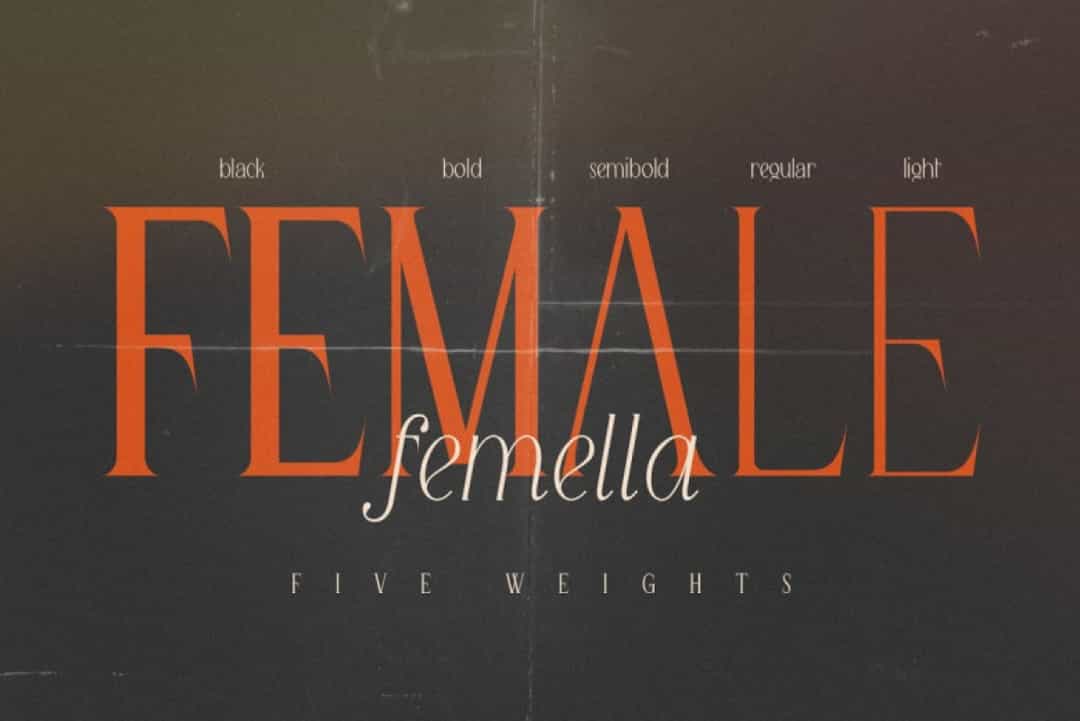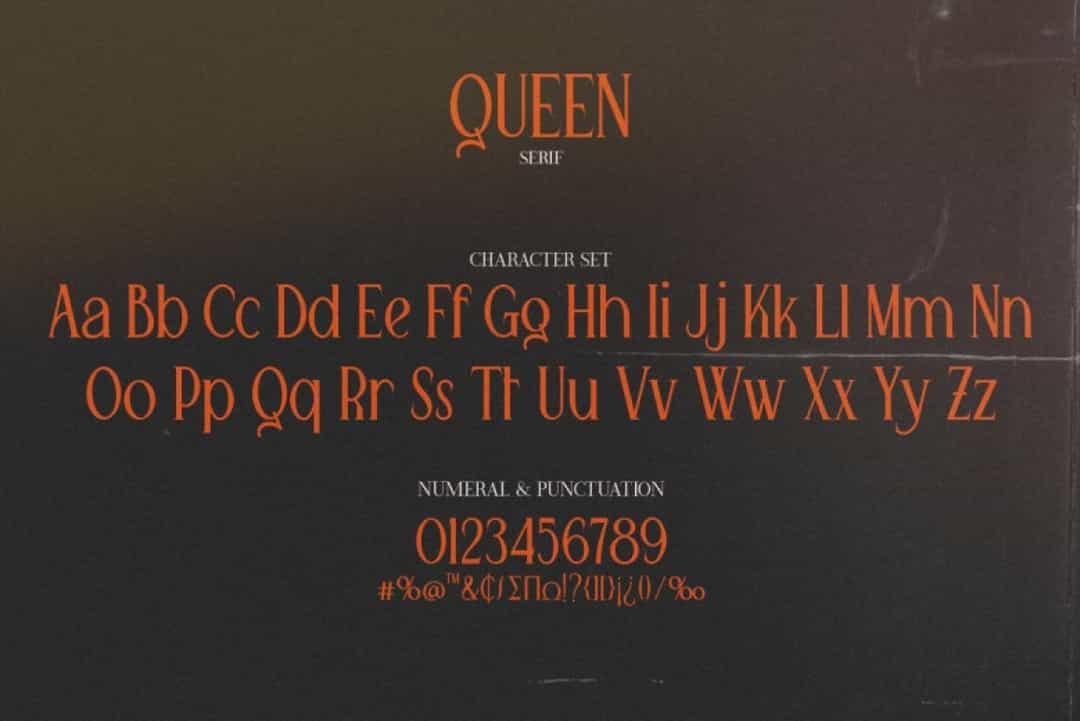
Queen Serif is a trendy serif typeface family, featuring both vintage and contemporary elements for an attractive style. With several weight options to choose from, there are endless design possibilities for creating eye-catching typography designs with this font family.